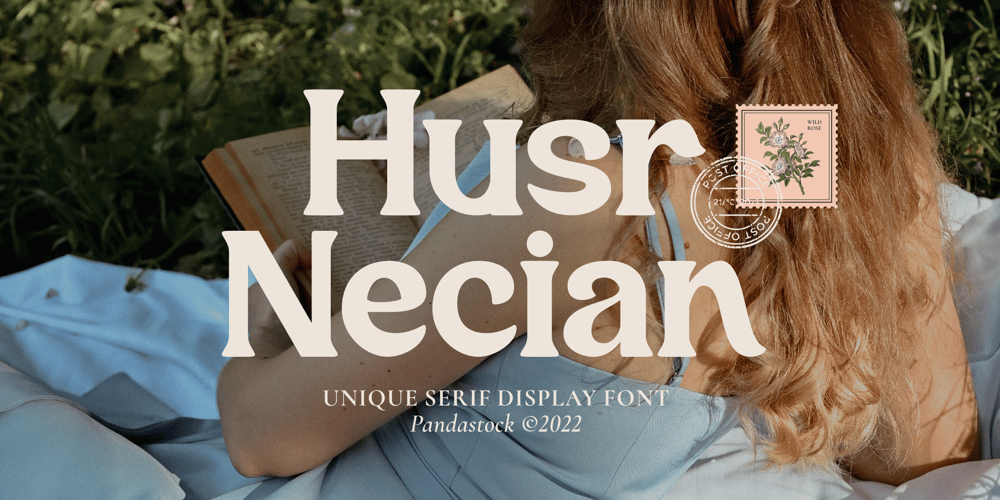
Husr Necian
Husr Necian font
Husr Necian Font Family was designed by Aulia Savira Putri and published by Imoodev. Husr Necian contains 1 styles and family package options. Husr necian is luxury serif fonts with visual elegance, smooth curves, and beautiful ligatures clear, making your work look true and attractive.A versatile font that works in both large and small sizes. This font is suitable for a wide variety of projects such as invitations, logos, branding, magazine, photography, card, product packaging, mugs, quotes, poster, labels, signatures, and more.A font which is perfect for all business sectors including personal projects, studio, corporate, creative agency, industrial, company, etc.